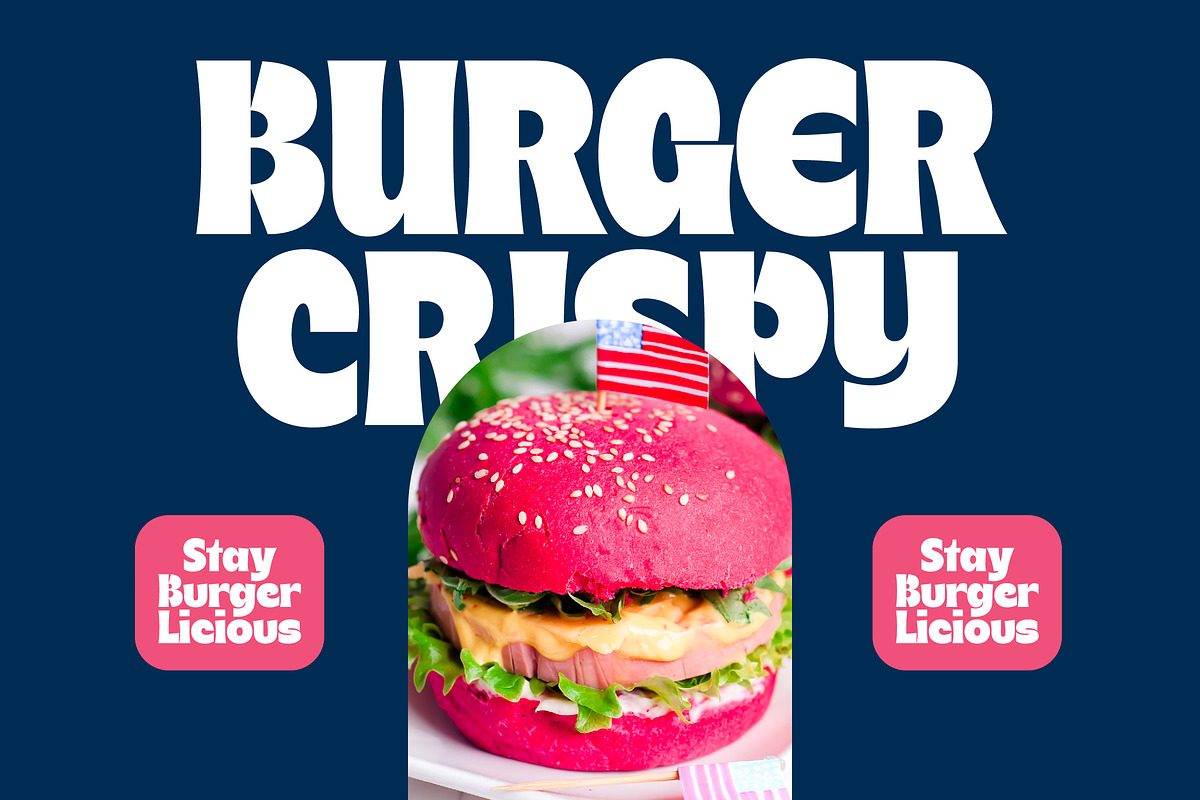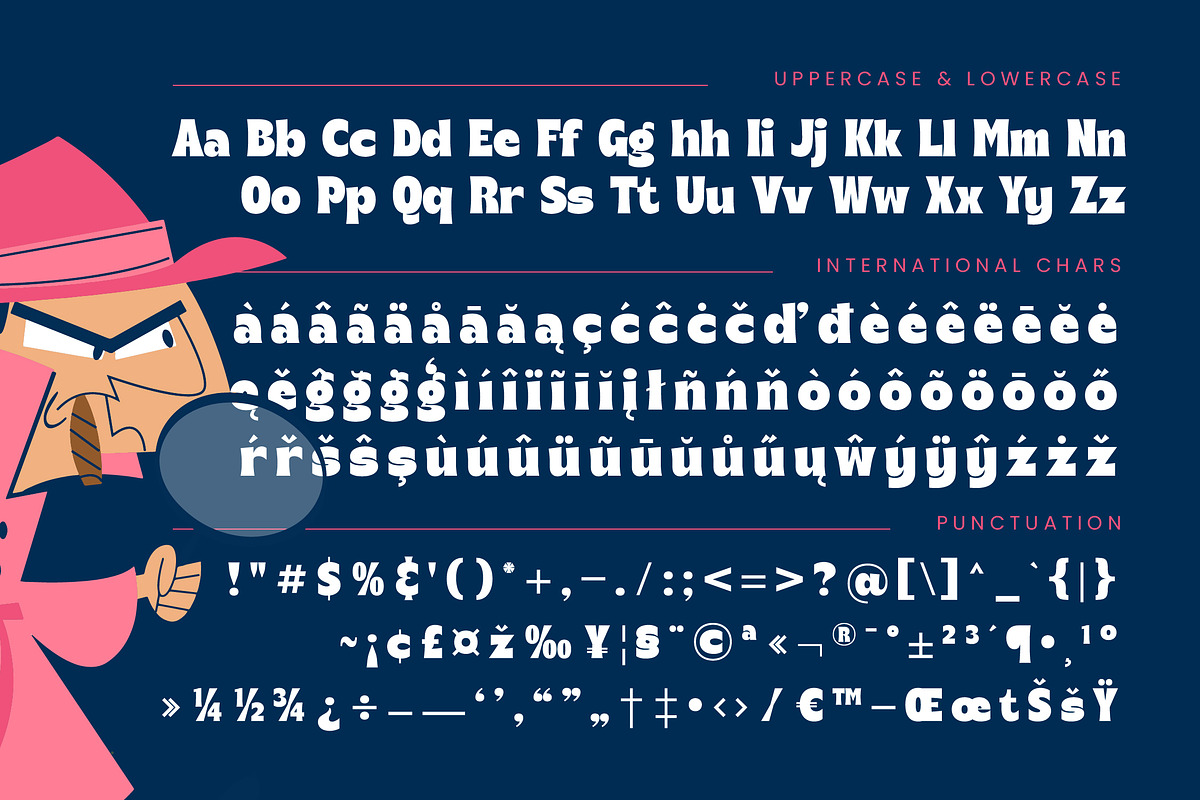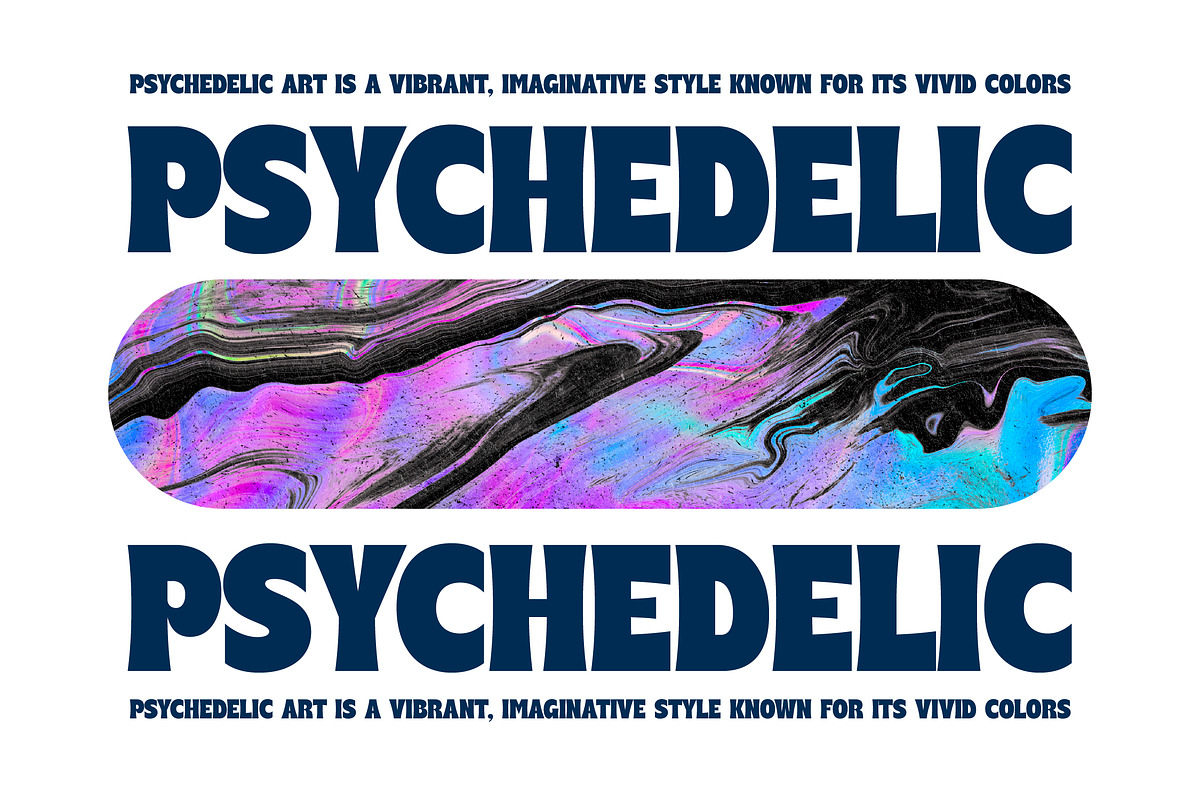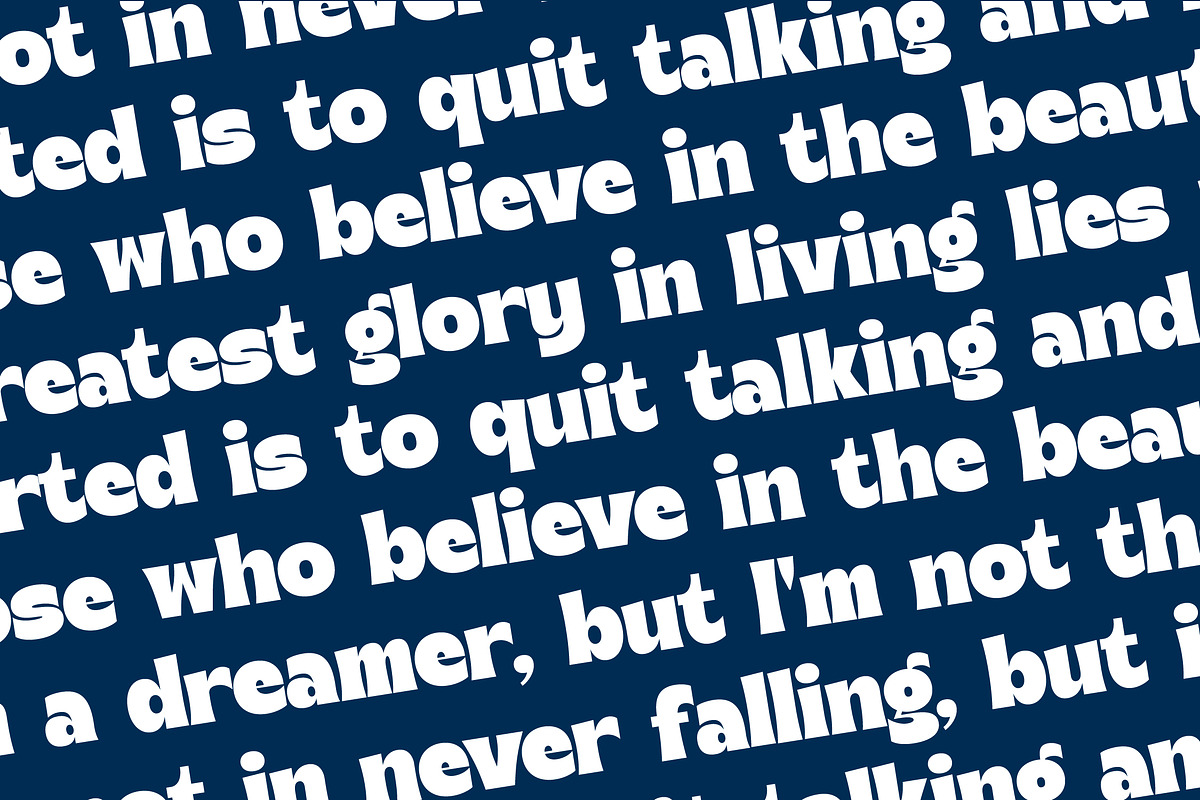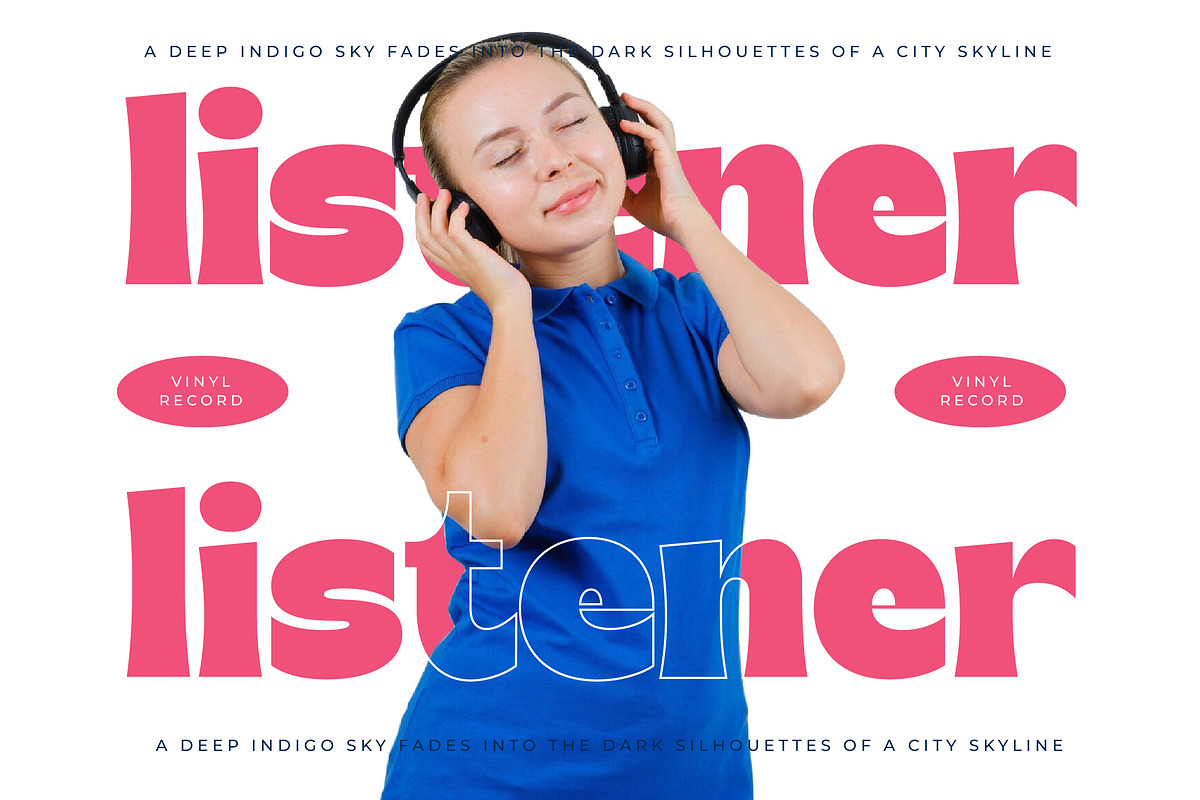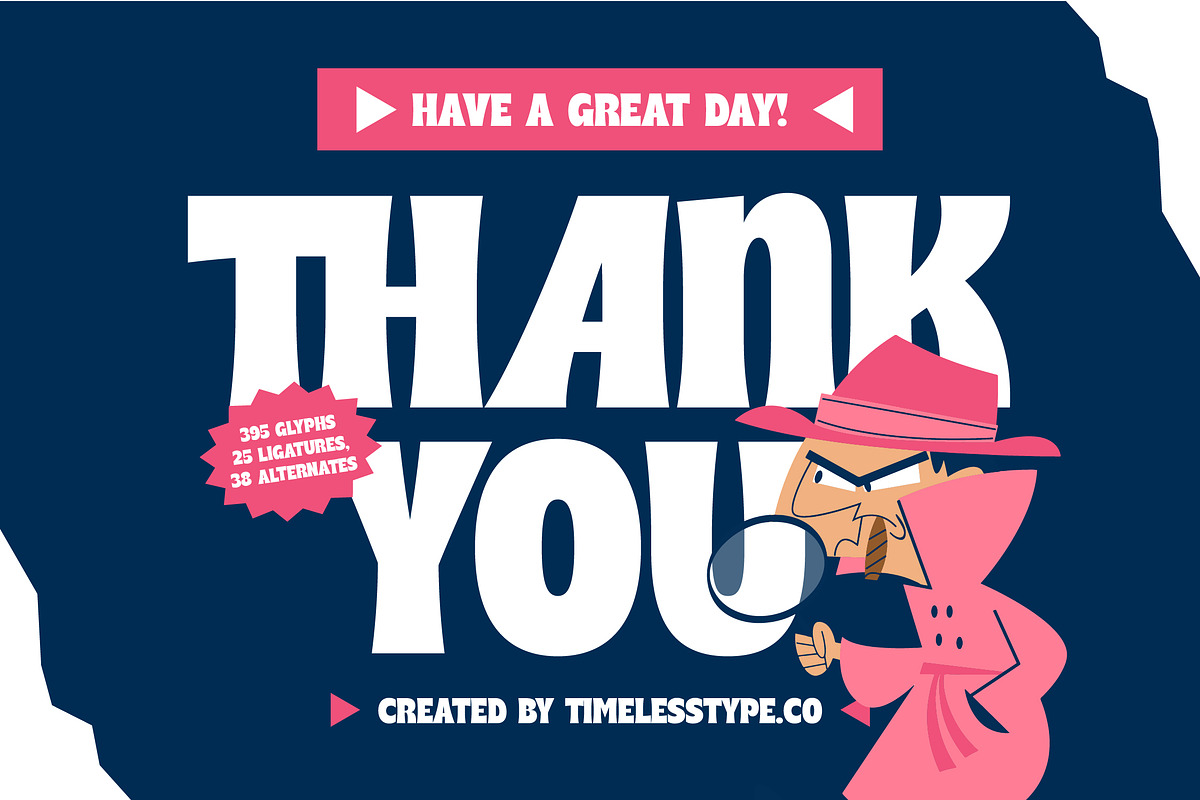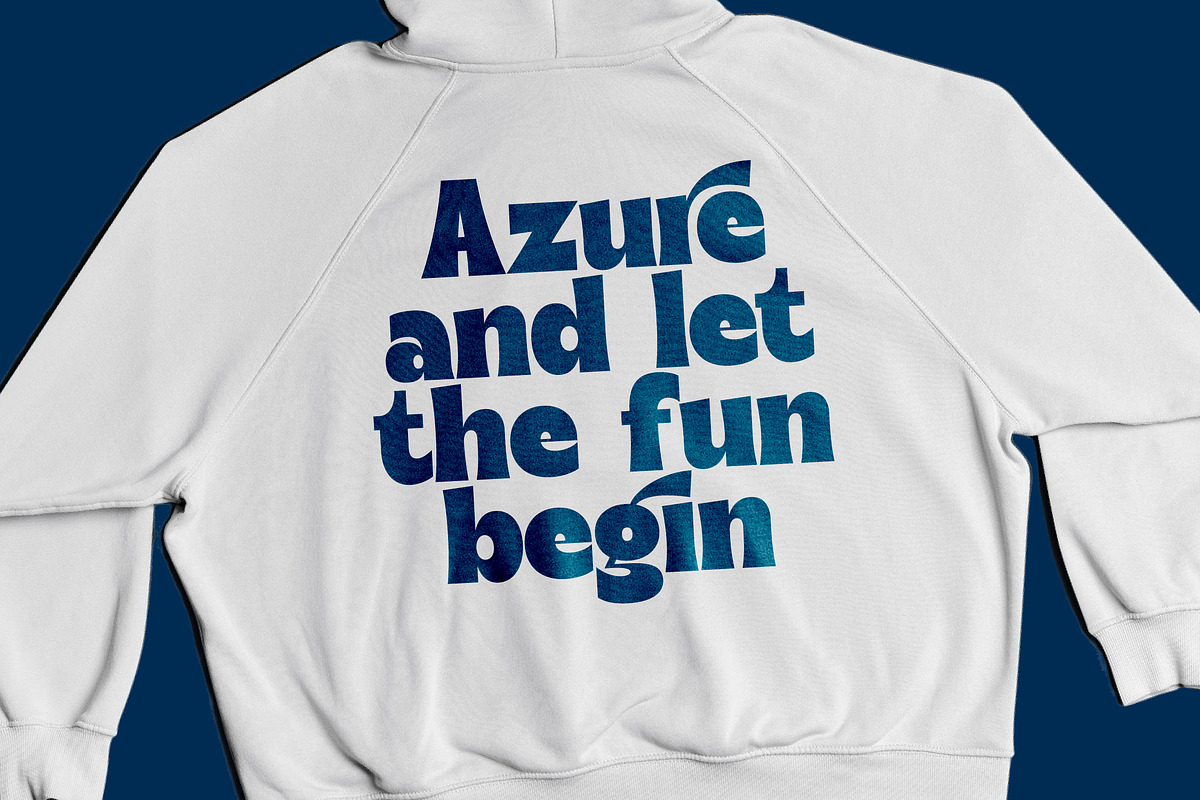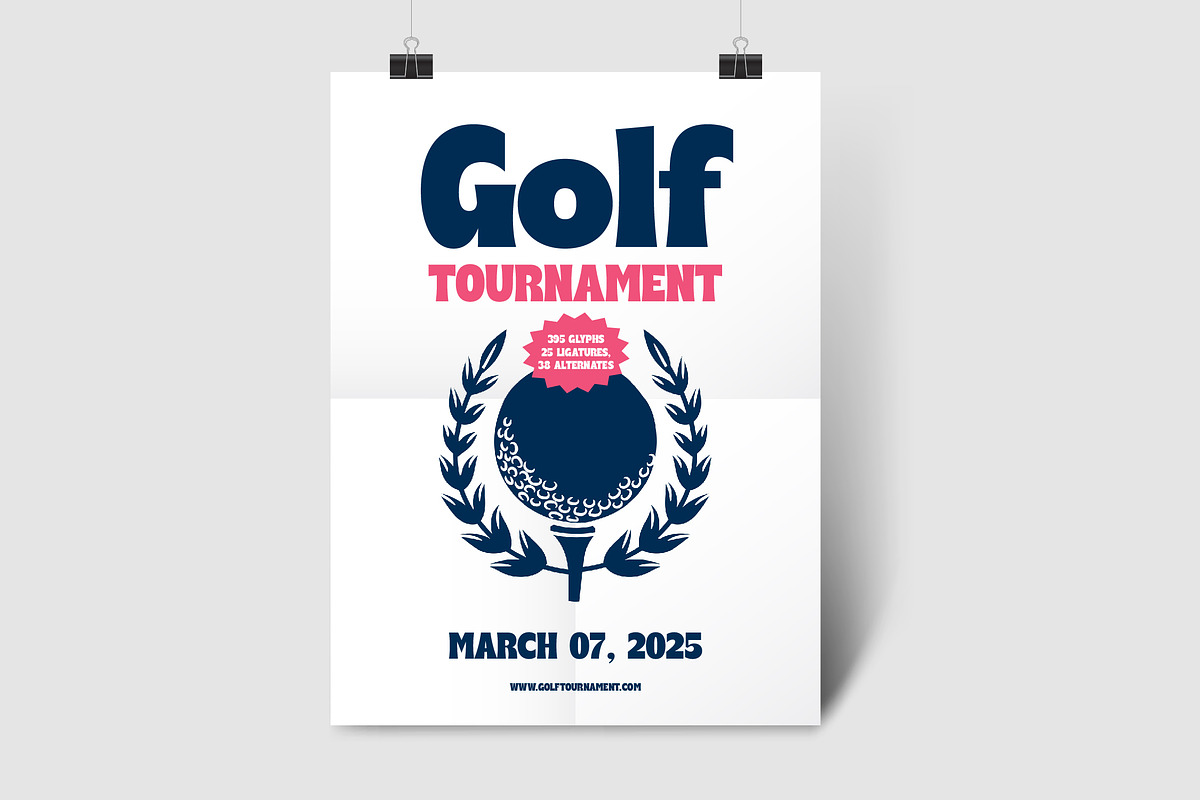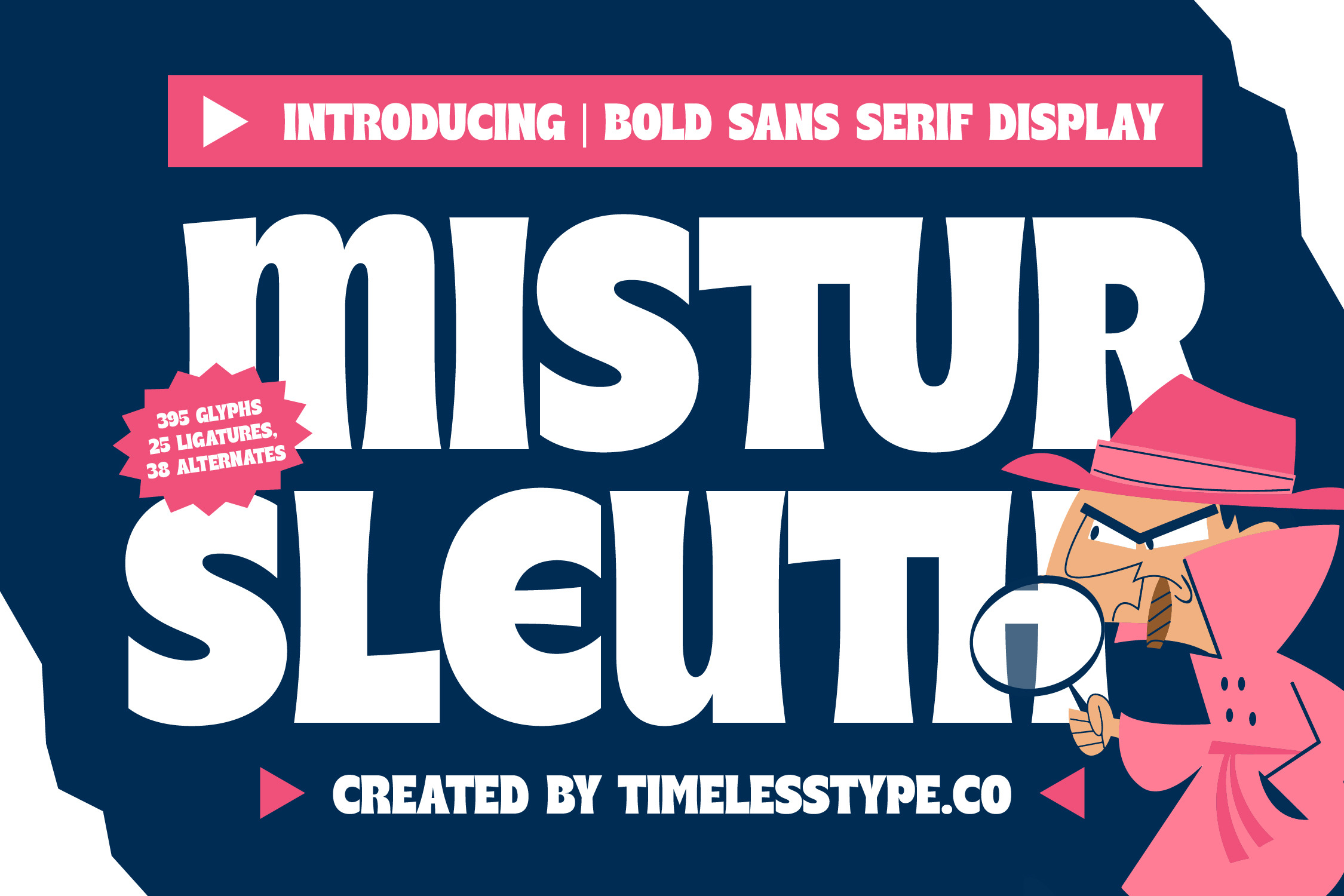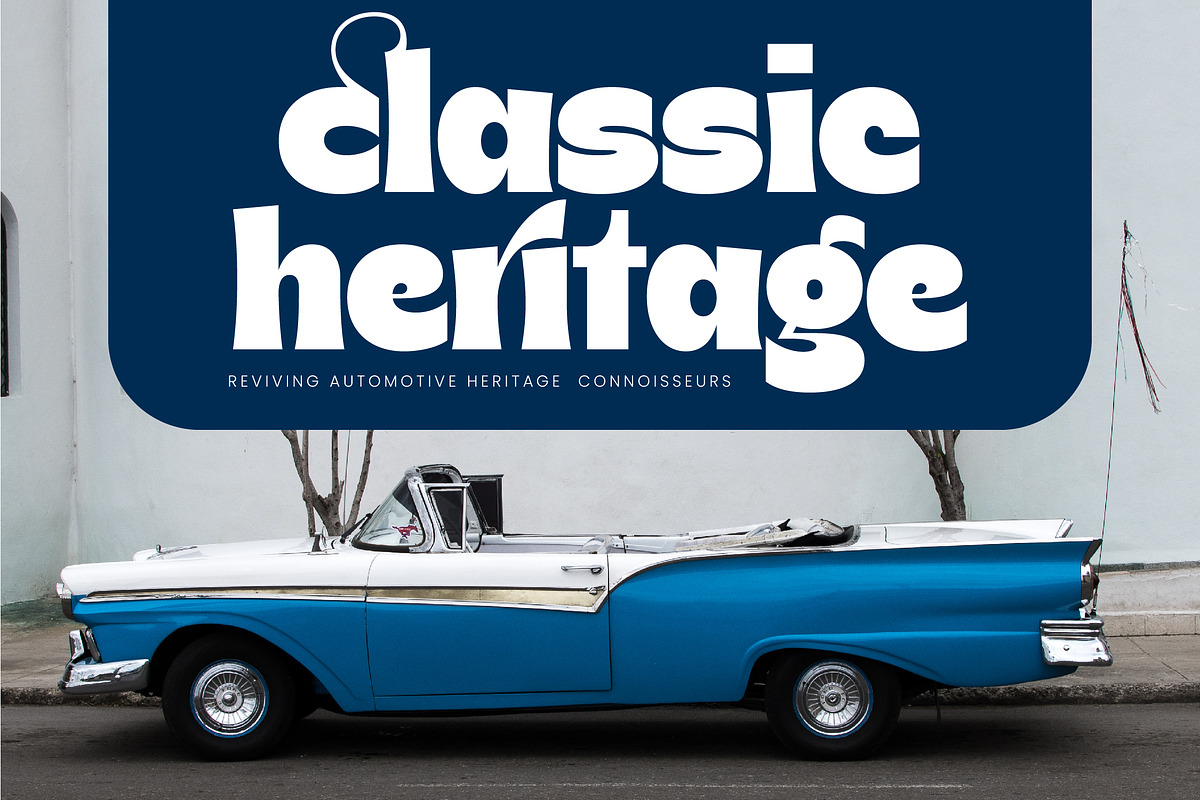
Mistur Sleuth Retro Display Font
Mistur Sleuth is a charismatic powerhouse of a font that instantly injects a sense of playful mystery and bold character into any creative project. This font is designed for those who want their headlines to do more than just speak; they need to tell a story with a wink and a nudge.
Drawing deep inspiration from the whimsical and sharp-edged animation of mid-century detective cartoons, this typeface captures the essence of a smoky jazz club or a late-night stakeout. It evokes the nostalgic era of classic mystery paperbacks and vintage crime caper title sequences with its quirky, hand-cut paper aesthetic.
The soul of this typeface lies in its unapologetic presence and irregular, bouncy rhythm that creates a unique modern serif display effect through its heavy weights. Every glyph is crafted for maximum branding impact, offering a level of luxury typography and high-contrast serif sophistication mixed with a fun editorial font aesthetic.
Riding the wave of the current modern serif trend, this font perfectly fits the demand for high-quality editorial display fonts that prioritize personality over perfection. It meets the needs of the modern market by providing character-driven typography that helps brands stand out in a crowded digital landscape through highly expressive letterforms.
This versatile typeface is the ultimate choice for high-energy logo design and distinctive branding projects that require a touch of humor and grit. It excels in packaging for artisanal products, vibrant editorial layouts, and even unconventional wedding stationery or fashion posters where a bold, narrative-driven voice is essential.
The package includes a robust set of ligatures and alternates that allow for endless customization of your text layouts. It also features decorative swashes and full multilingual support with international characters to handle professional projects across many different languages with ease.
- Ligature 25 Alternate 38